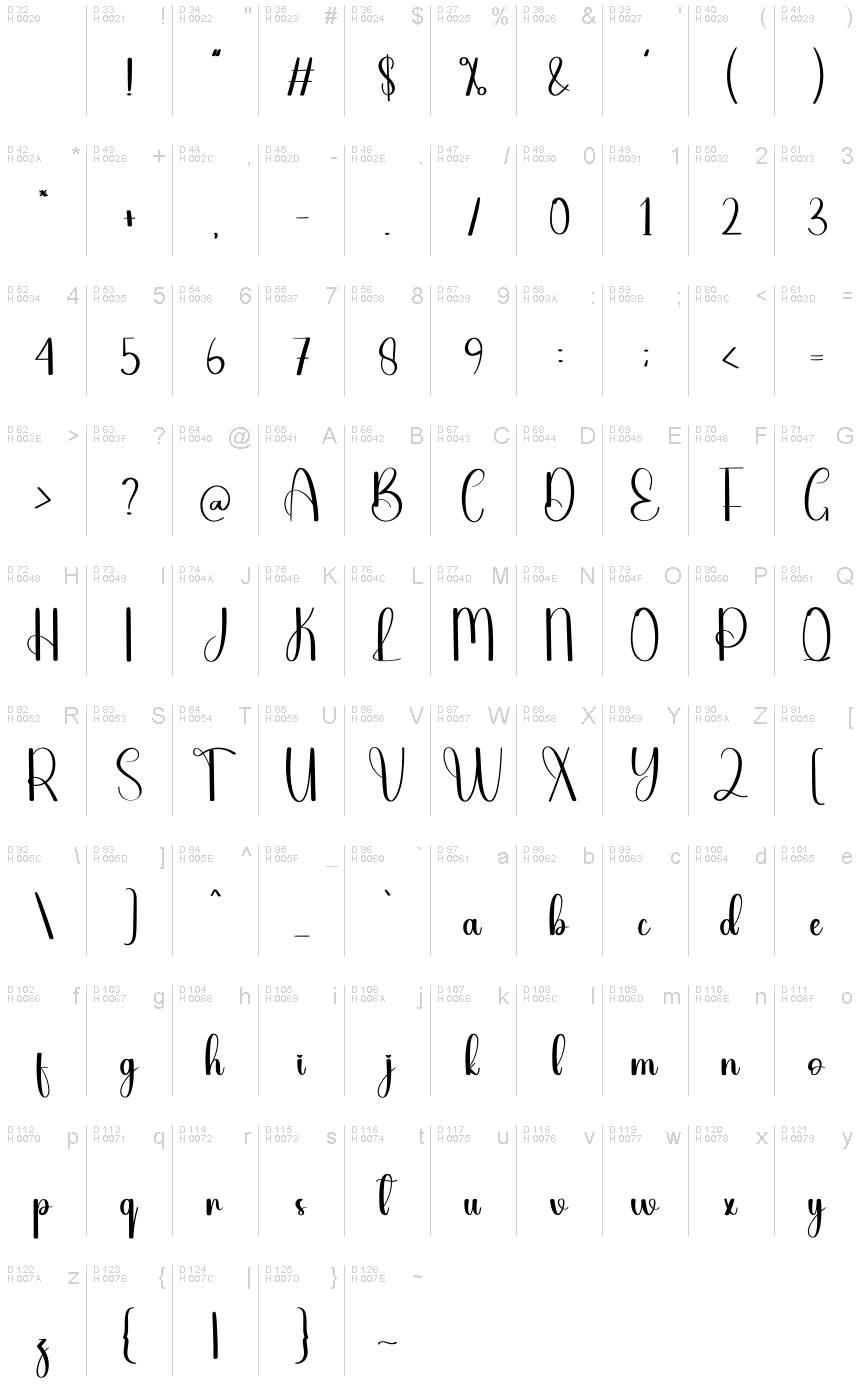
Melamine
Melamine is a captivating handwritten font designed by Andi Moz. Its natural, flowing strokes evoke a sense of warmth and authenticity, making it an excellent choice for a wide range of design applications. The font's organic, slightly imperfect quality lends it a charming, personalized aesthetic, perfect for projects that seek to convey a handcrafted, artisanal feel.
Melamine's versatility shines through its ability to adapt seamlessly to various contexts, from invitations and stationery to branding and editorial design. Its distinctive character adds a touch of personality to any layout, while maintaining a legible and visually appealing structure. This font's unique blend of elegance and approachability makes it a valuable asset for designers seeking to create captivating, memorable designs.